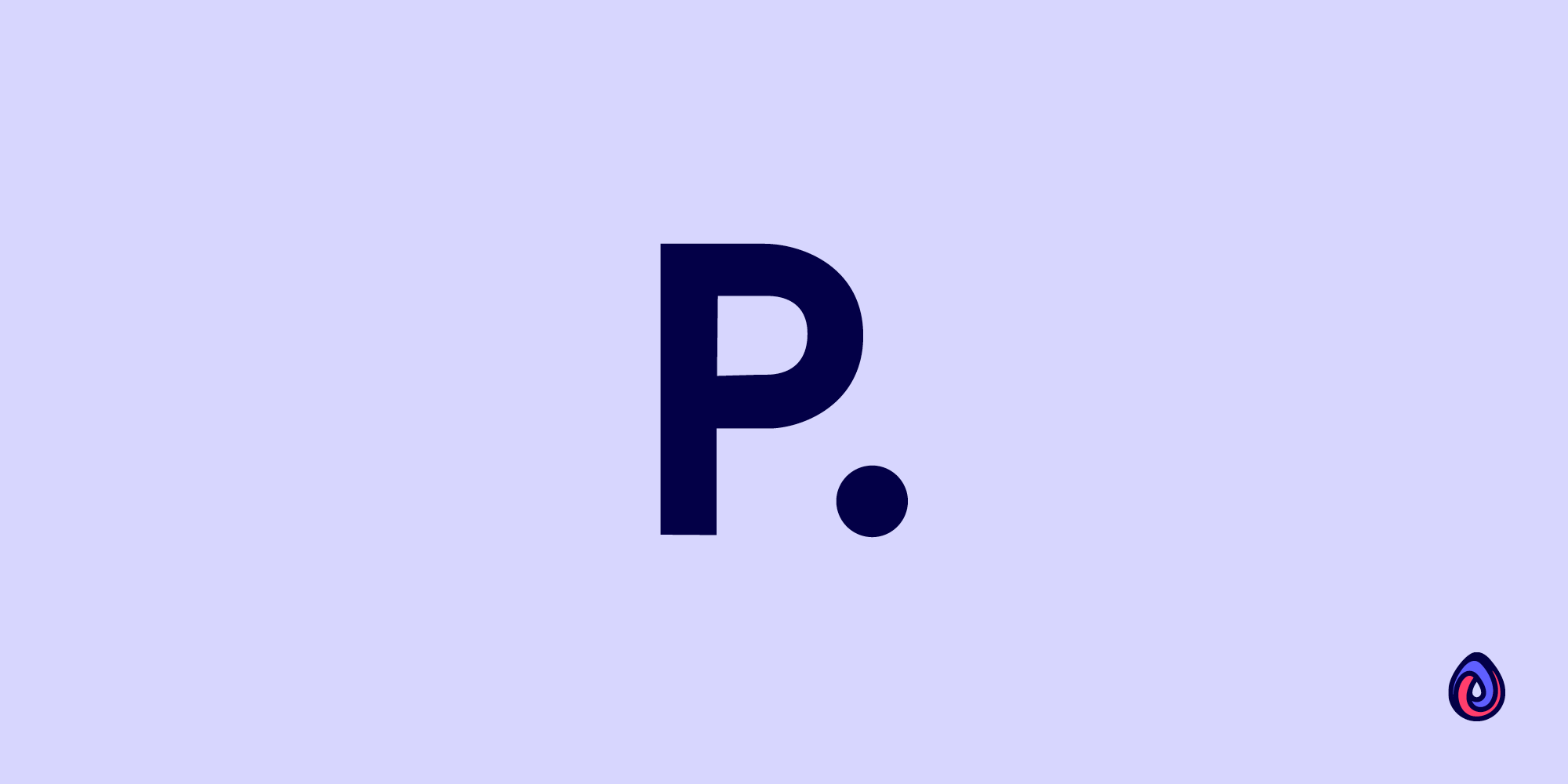
Pulp Display Free Download
Pulp Display Font Free Download
Pulp Display Font excels across diverse design applications including vintage book cover design, noir film promotions, retro magazine layouts, mystery novel marketing, crime thriller branding, vintage comic book titles, detective agency communications, and atmospheric entertainment materials. Its dramatic character makes it particularly effective for projects requiring suspenseful atmosphere while maintaining excellent readability, ensuring your designs convey mystery and vintage sophistication across both digital platforms and specialty print materials.
What makes Pulp Display Font truly exciting is its masterful recreation of 1940s pulp fiction typography traditions enhanced with modern design precision that creates compelling noir communications. The font features meticulously crafted letterforms that incorporate bold proportions and dramatic elements reminiscent of vintage crime magazines and detective novel covers while maintaining excellent readability and professional application. Its distinctive character construction draws inspiration from golden age publishing and film noir aesthetics, creating text that feels both authentically vintage and contemporarily relevant. The font's optimized spacing and dramatic character relationships ensure superior performance across various entertainment applications while preserving the characteristic intrigue that defines its pulp personality.
Pulp Display Font presents a comprehensive type family designed to support diverse entertainment and vintage design requirements. The family typically includes regular, medium, bold, and heavy weights, along with corresponding condensed variations that provide complete flexibility for dramatic typography compositions. Many versions feature extended character sets with noir symbols, vintage ornaments, and specialized glyphs that enhance authentic pulp fiction aesthetic applications.
The Pulp Display Font Free Download represents exceptional value for designers working on entertainment and vintage-themed projects across multiple sectors. Whether developing mystery novel branding, creating noir film materials, designing vintage magazine communications, or producing crime entertainment content, this font delivers consistent atmosphere and memorable pulp appeal. Its vintage characteristics make it particularly effective for industries including publishing, entertainment media, vintage retail, and mystery gaming sectors seeking to communicate authentic noir atmosphere and vintage sophistication.
For optimal results, Pulp Display Font combines powerfully with high-contrast color schemes and dramatic design elements that reinforce its noir message. Its suspenseful presence excels in headline applications while maintaining excellent performance in entertainment promotional contexts. The font's vintage sophistication and pulp authenticity make it an invaluable tool for creating atmospheric communications that resonate with audiences appreciating classic mystery and noir entertainment.